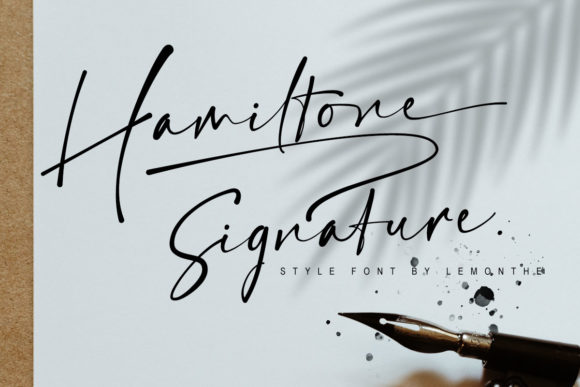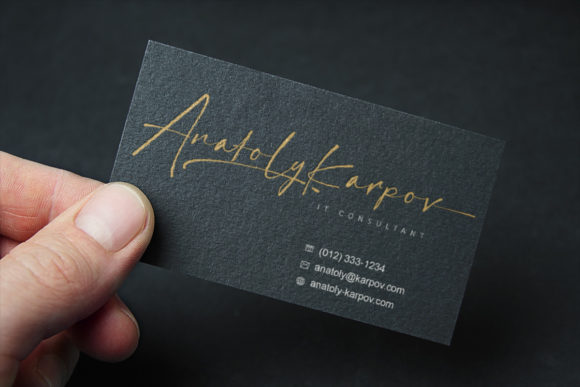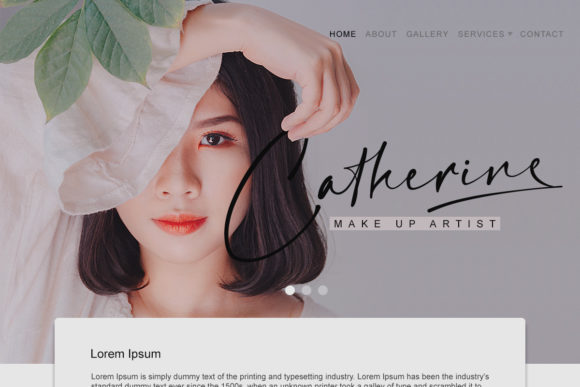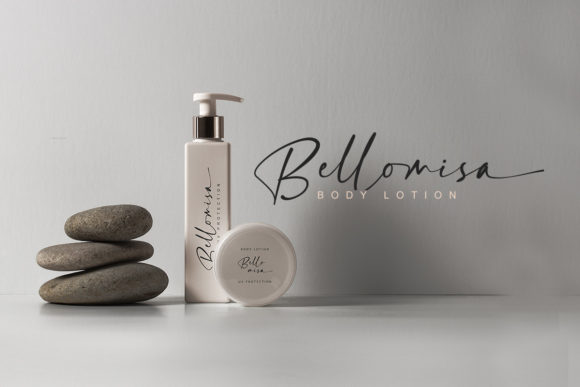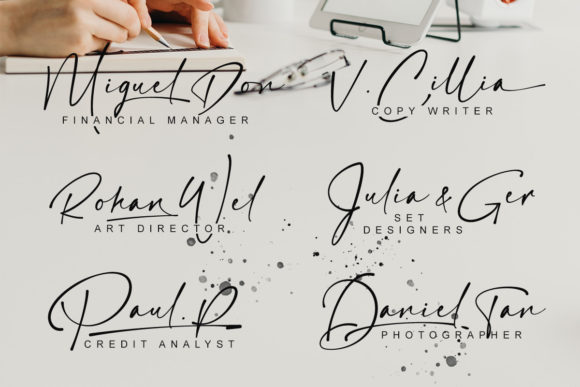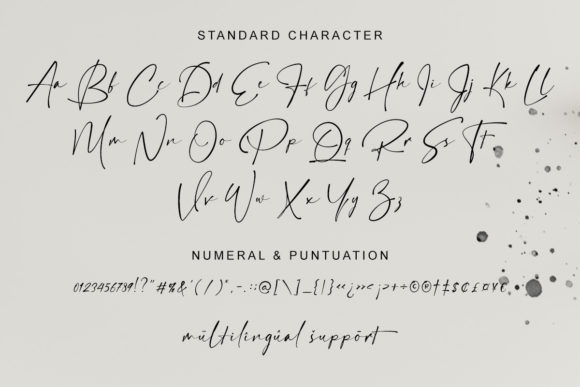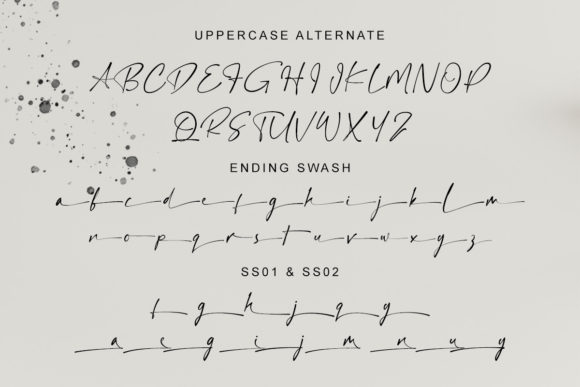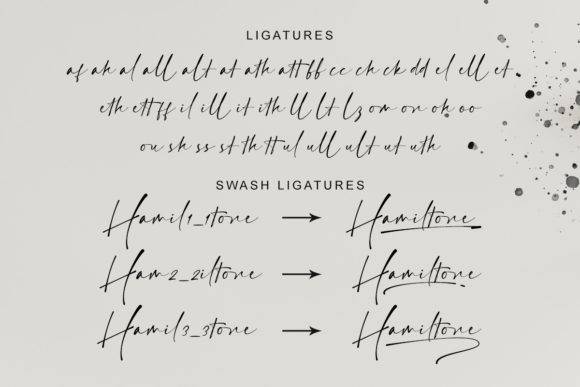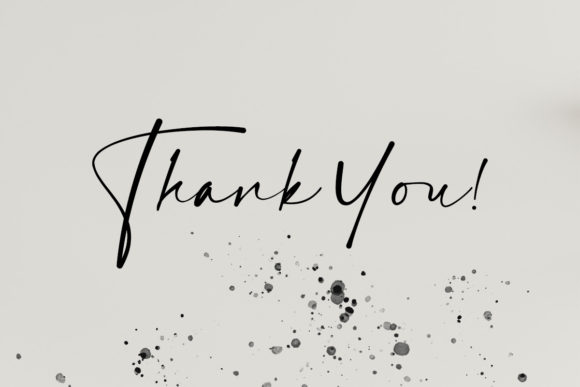
Hamiltone Signature Font
About Hamiltone Signature Font
Hamiltone Signature is a lovely and relaxed handwritten font. It is PUA encoded which means you can access all of the glyphs and swashes with ease! It features a varying baseline, smooth lines, gorgeous glyphs and stunning alternates.
Fall in love with its incredibly distinct and timeless style and use it to create spectacular designs!